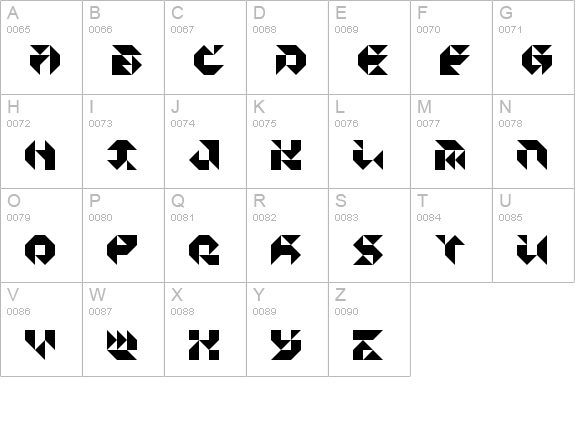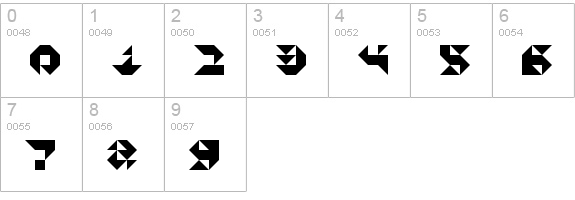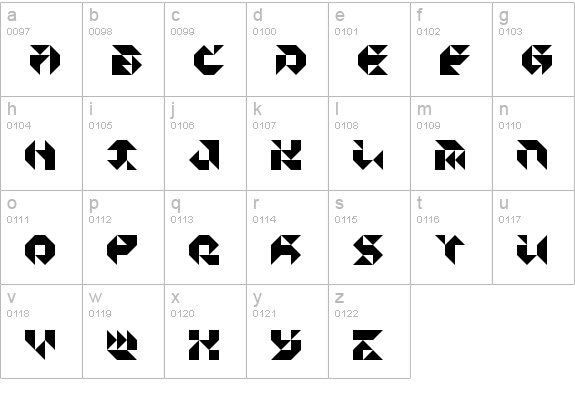
Particulator III Regular Font Details
Particulator III Regular is the standard, neutral variant in the Particulator typeface family \xE2\x80\x94 well suited to general body text, paragraphs, and standard typographic work.